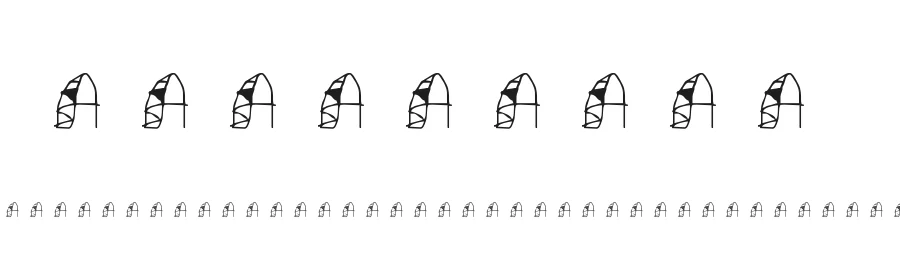
About Book Stamps Figure Font
Book Stamps Figure is a dingbat font designed by Osman Aktaş. It includes 25 glyphs, a regular weight, and TTF (TrueType) format. Book Stamps Figure is free to download; check the license details on this page before commercial use. Dingbat fonts like Book Stamps Figure work best for icons, ornaments, bullet points, and decorative accents.
Book Stamps Figure Font is a versatile dingbats font that works for both headings and body text. Pair it with a contrasting sans-serif or serif font to add visual interest and a clear distinction between titles and body copy.
Book Stamps Figure Font
by Osman Aktaş